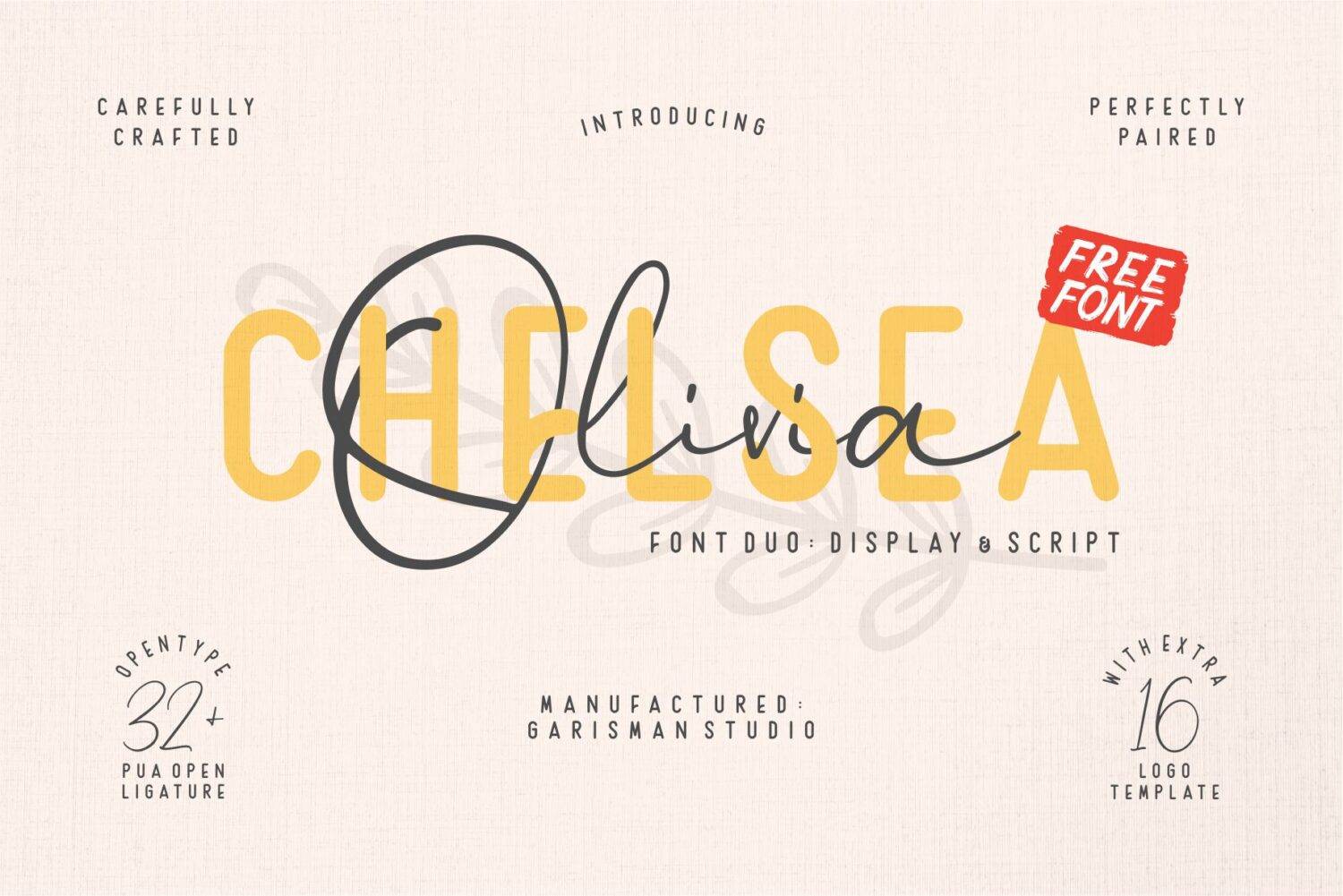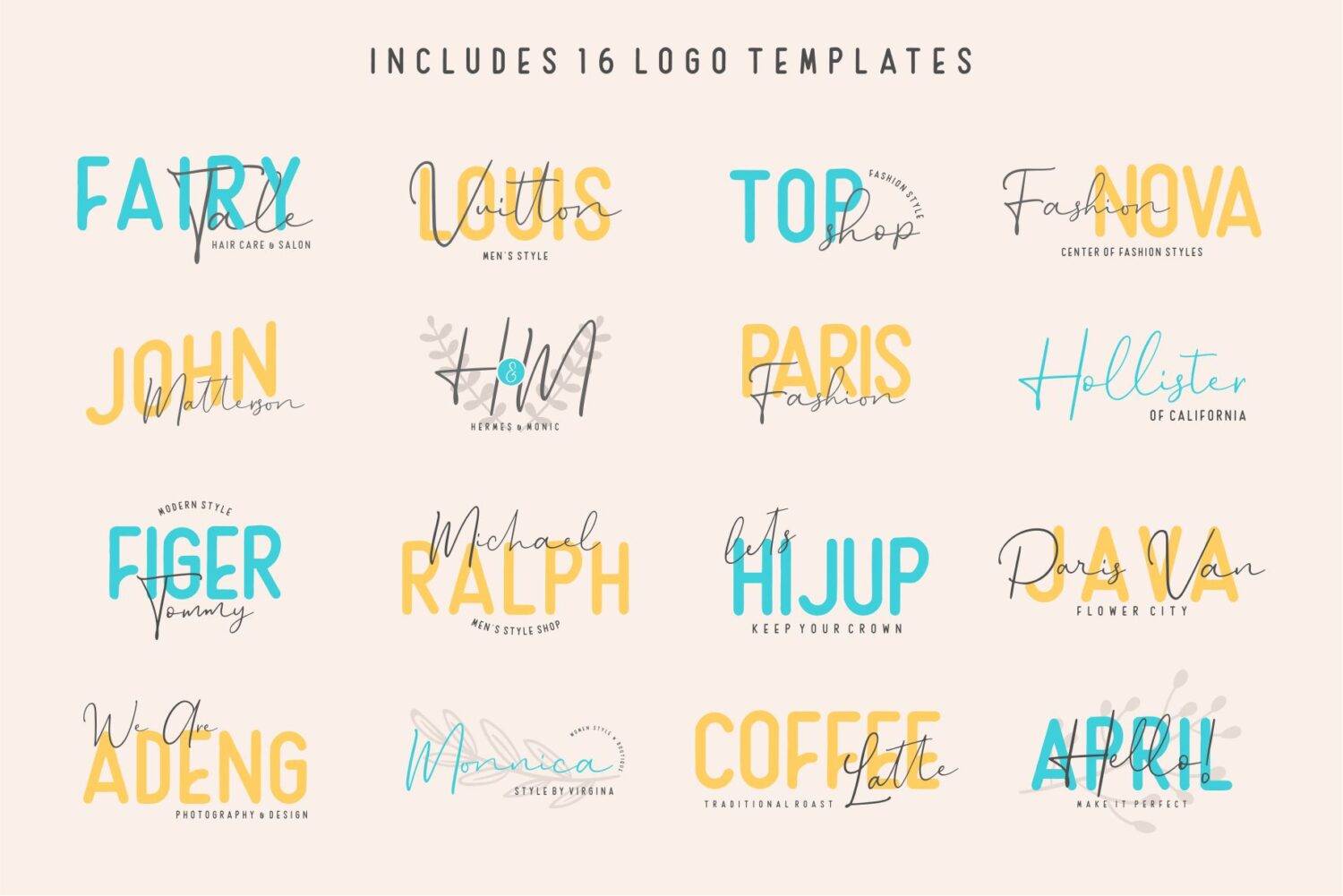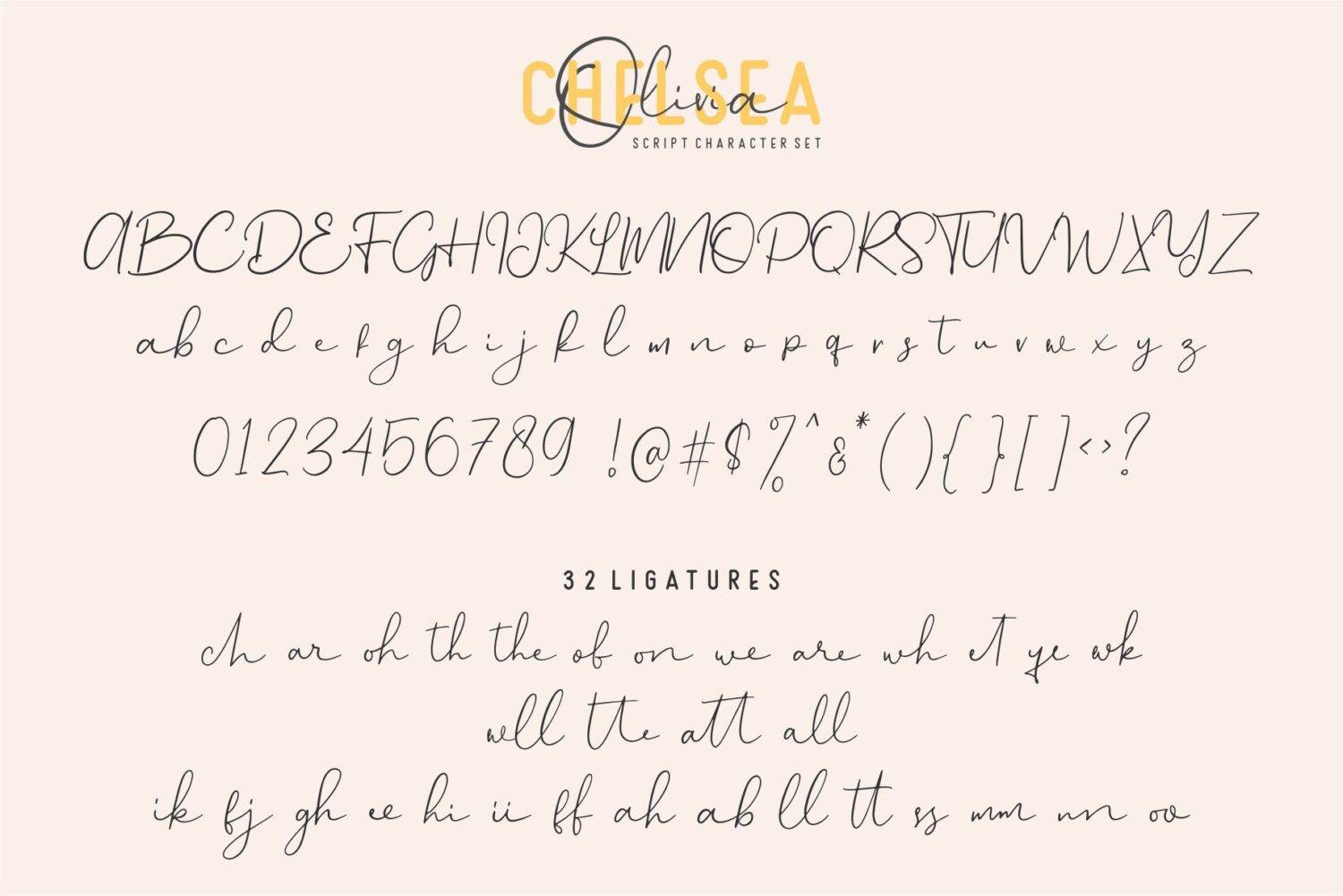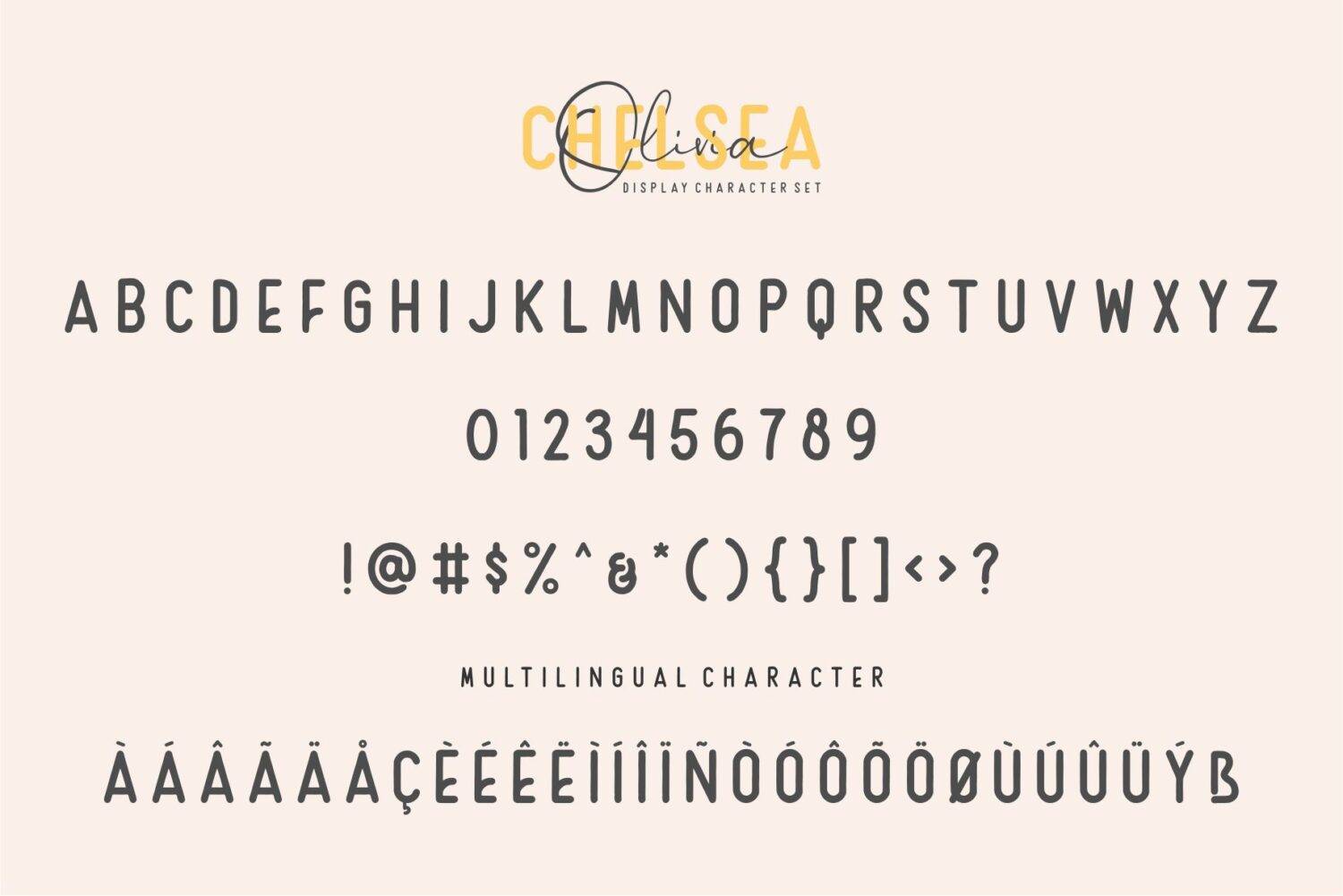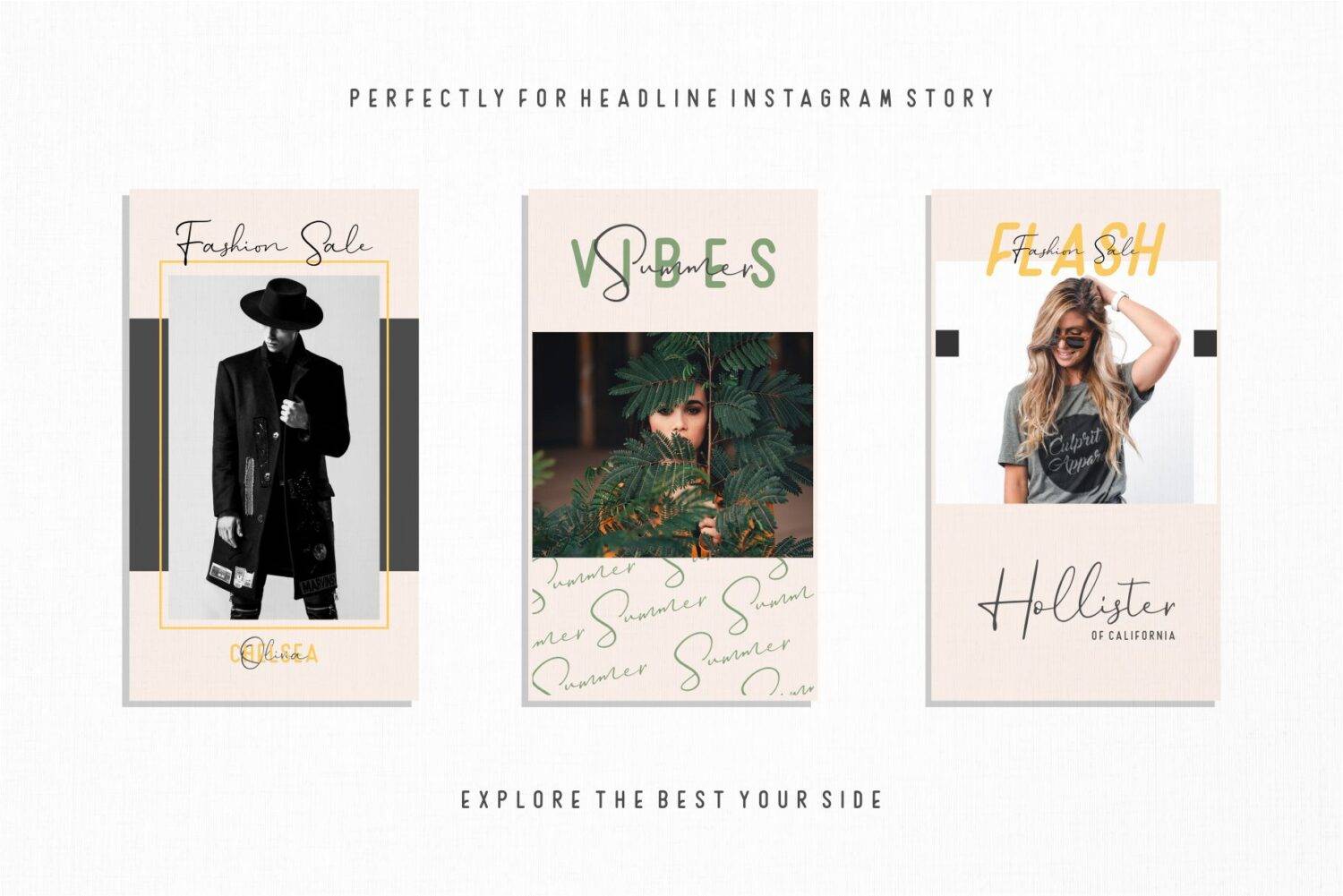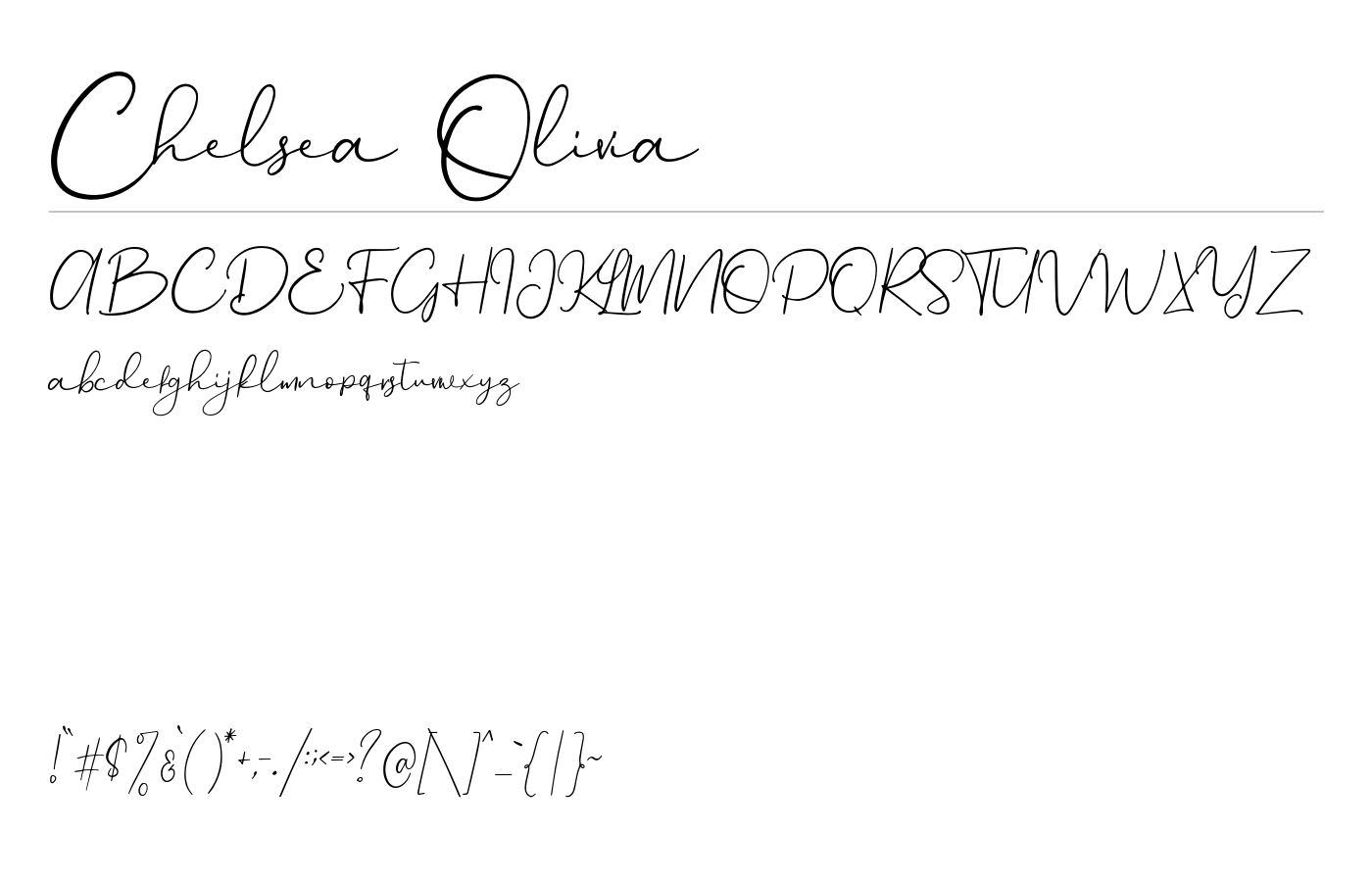
Chelsea Olivia is a delicate, handwritten script font characterized by its thin, flowing lines and airy, elegant appearance. With its slender strokes and natural, organic letterforms, it conveys a personal and graceful feel, perfect for invitations, fashion branding, and other designs needing a soft, stylish touch. This font works best in headings or decorative text where a charming, feminine style is desired.
Chelsea Olivia Font
About Chelsea Olivia Font